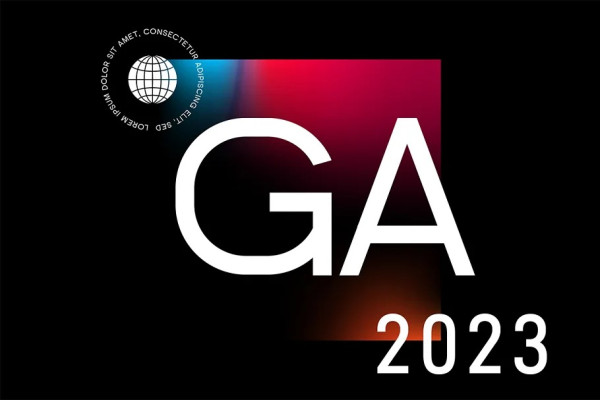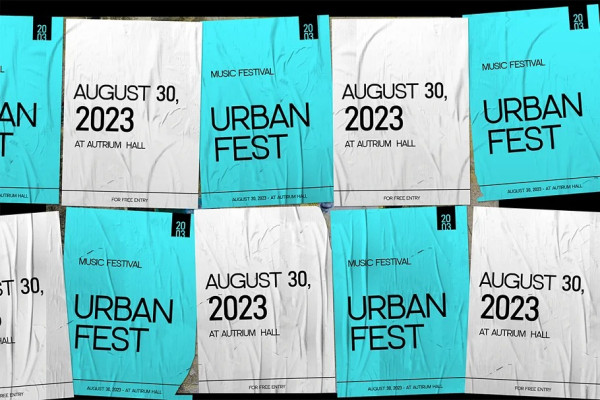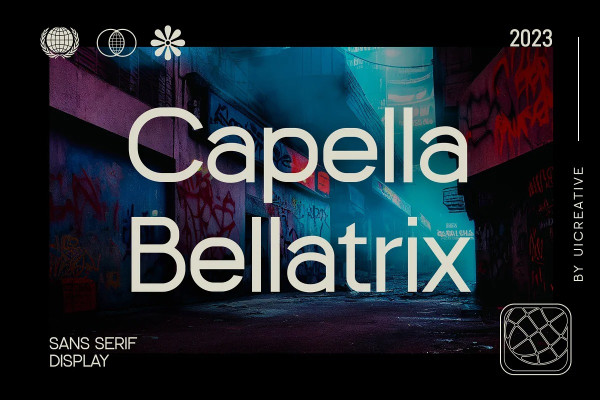
Capella Bellatrix Font
Capella Bellatrix Font – Sans Serif Font. Modern Sans Serif font that feels beautiful classy, elegant, and modern. This font is ideally suited for a wide variety of projects, such as signature, stationery, logo, wedding, typography quotes, magazine or book covers, website headers, clothing, branding, packaging design, and more. Also, fashion-related branding or editorial design displays both masculine and feminine qualities.